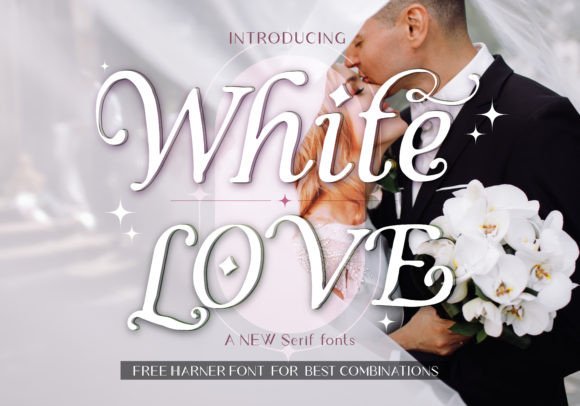
Introducing White Love, the display font that exudes sophistication and grace. This masterpiece from BB Type Studios will transform your creative projects into captivating works of art.
Indulge in the allure of White Love, where every curve and stroke whispers elegance. It's a font that speaks volumes without uttering a single word. Let White Love elevate your fashion brand, adding an air of exclusivity and style to your designs.
Empower your creations with White Love's versatility. Its delicate swashes and intricate details will add a touch of whimsy to your invitations, greeting cards, and social media posts. Unleash your imagination and let White Love guide your designs to new heights.
Crafted with meticulous care, White Love ensures that every letter is a work of art. Its PUA encoding grants you effortless access to a world of glyphs and swashes, empowering you to create captivating designs that will leave a lasting impression.
Embrace the beauty of White Love and let your projects blossom with elegance and charm. Its timeless appeal will elevate your designs, making them stand out in the crowded digital landscape.
Don't settle for ordinary fonts. Choose White Love, the font that ignites passion and transforms your creative visions into extraordinary realities. Immerse yourself in its enchanting allure and let your designs speak for themselves.